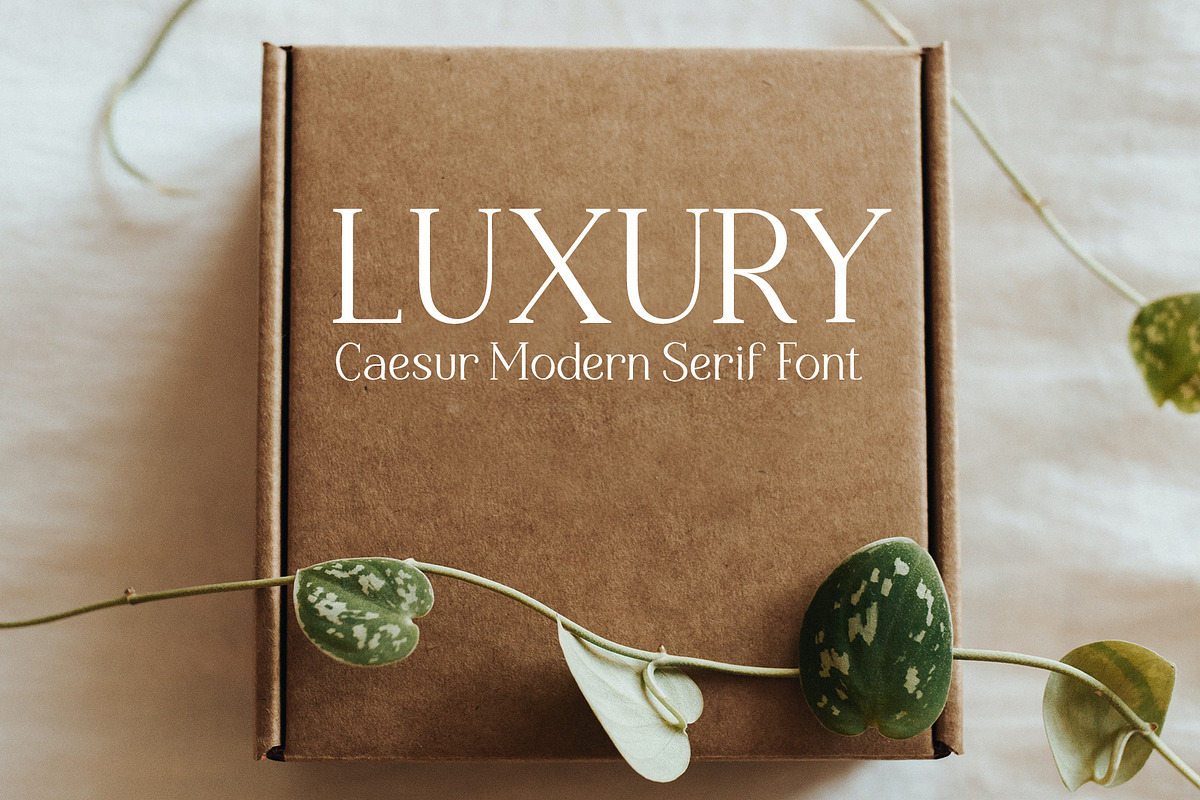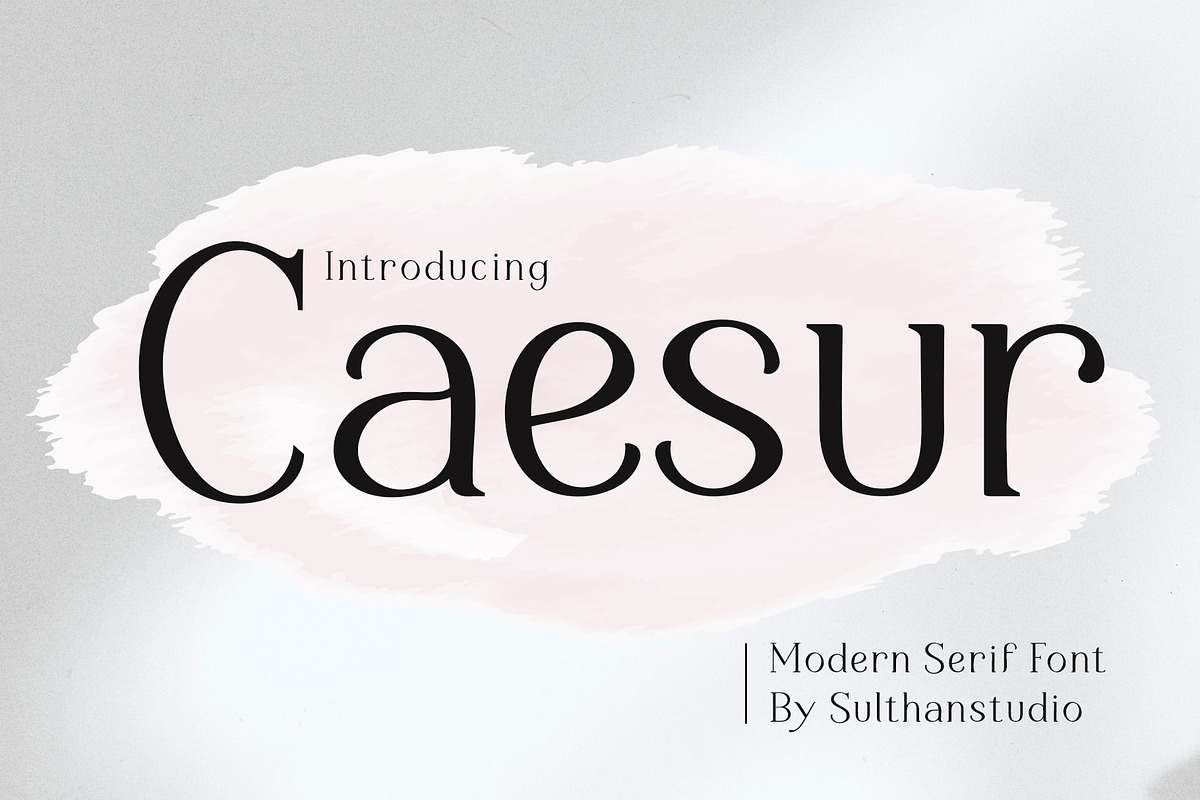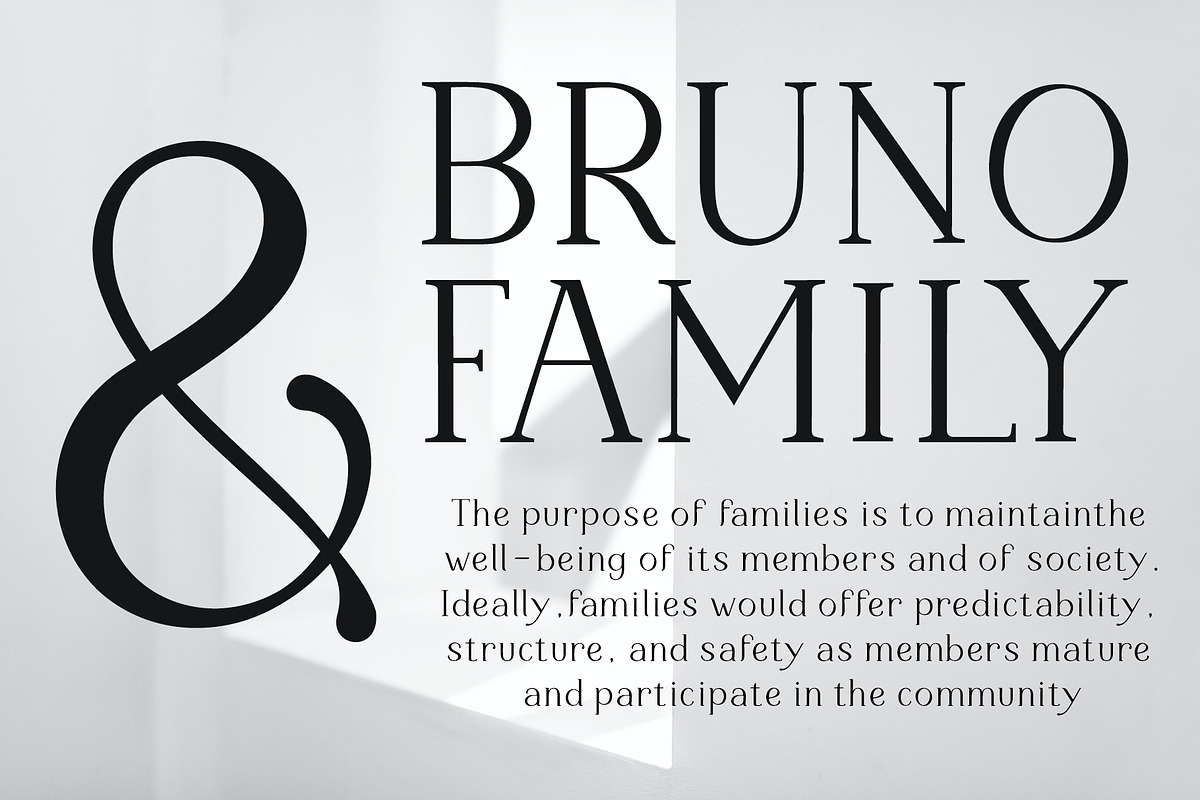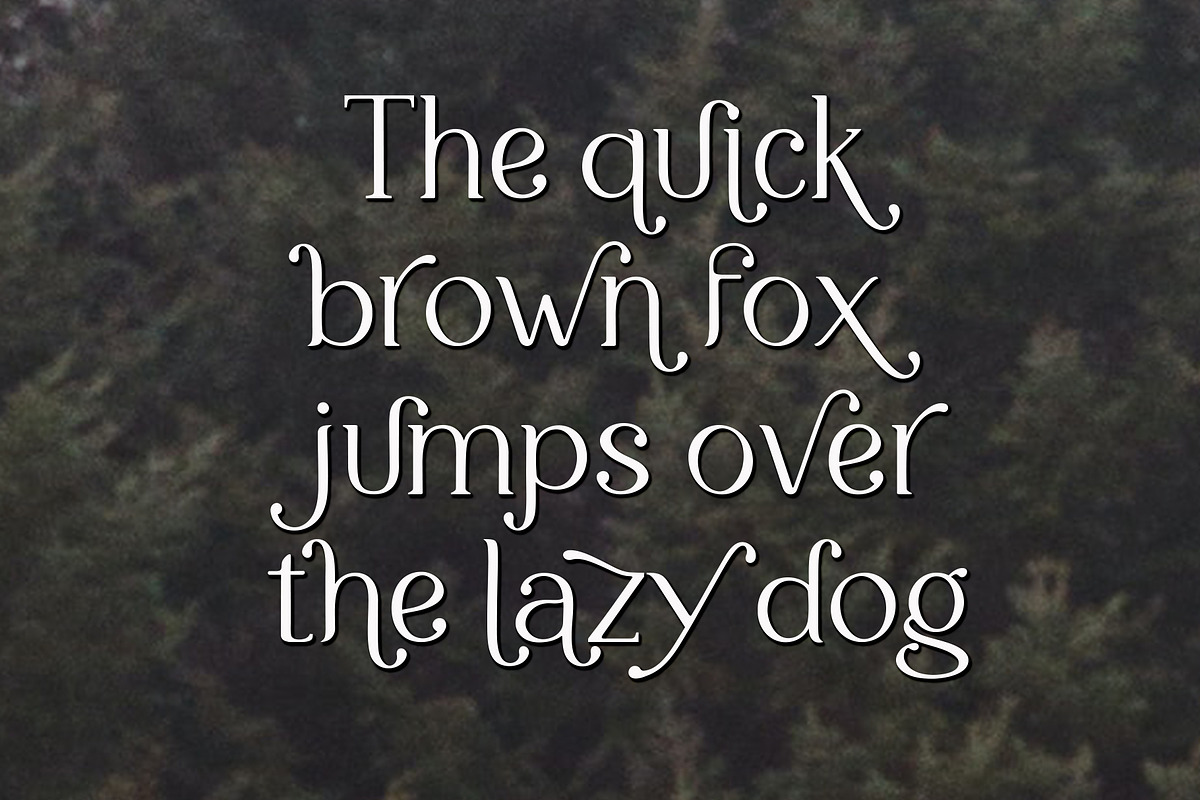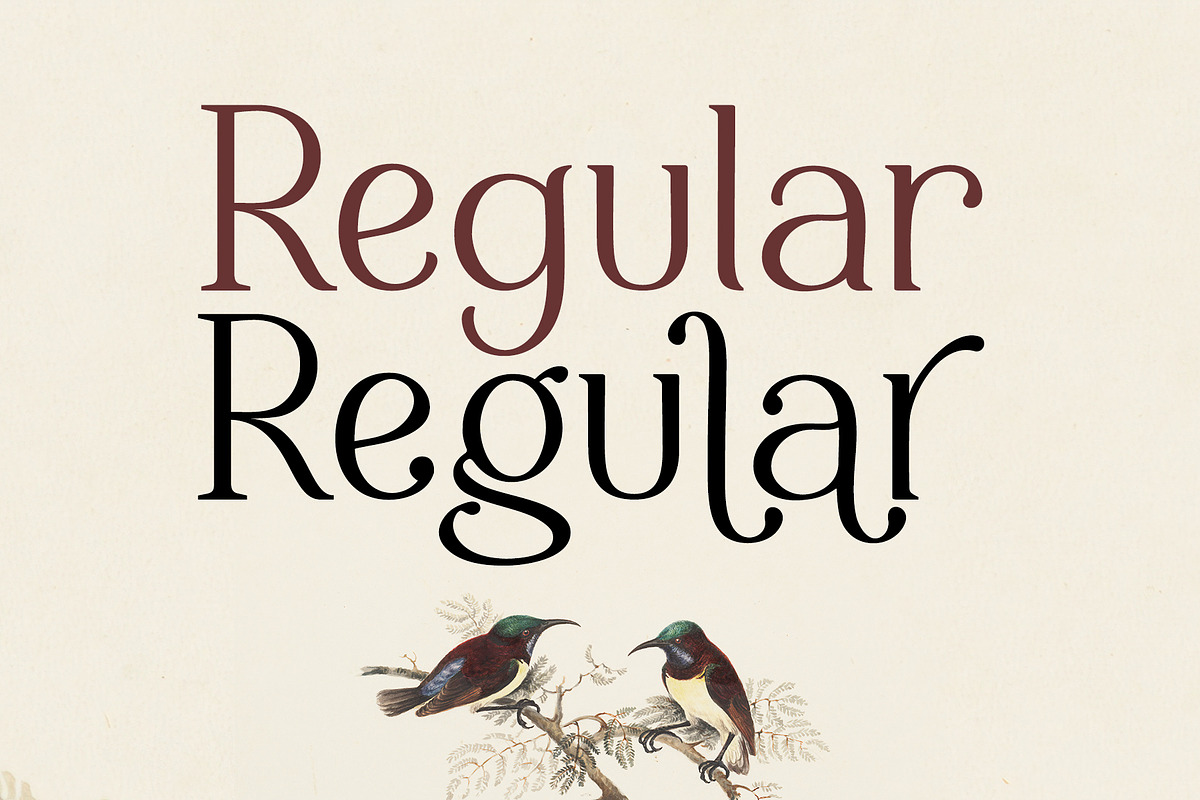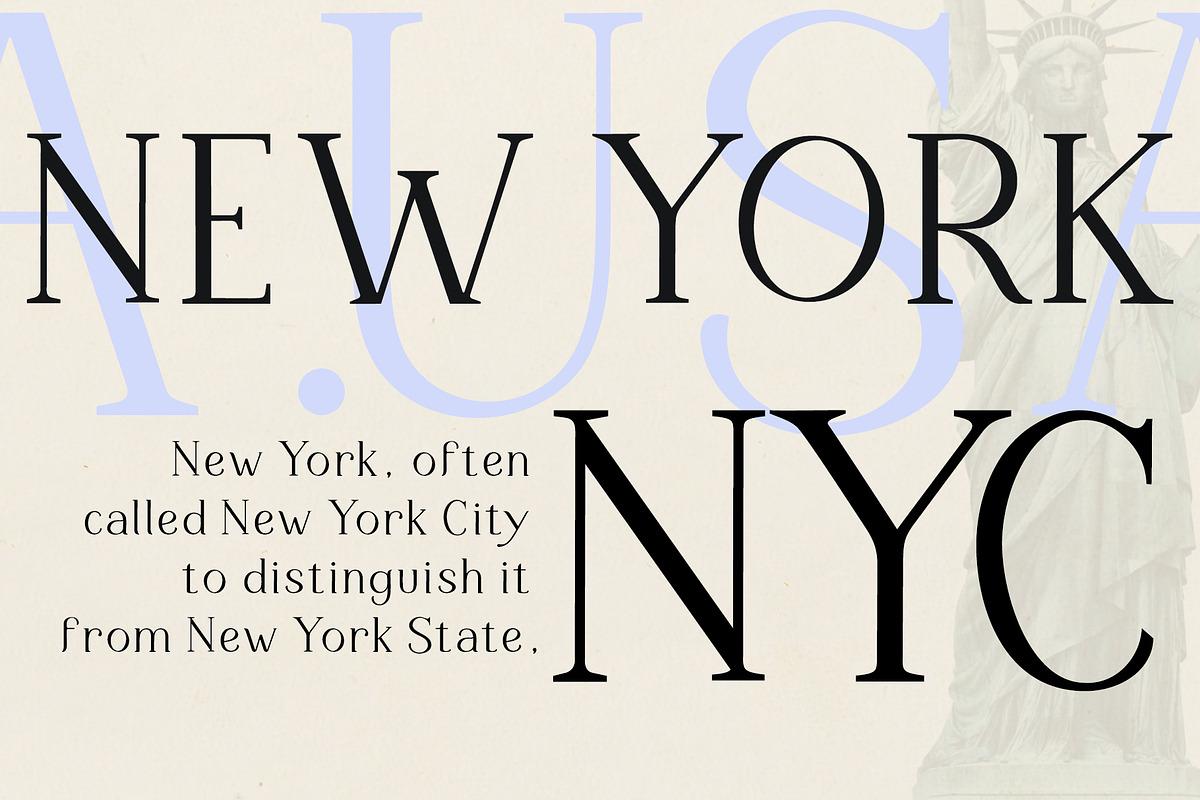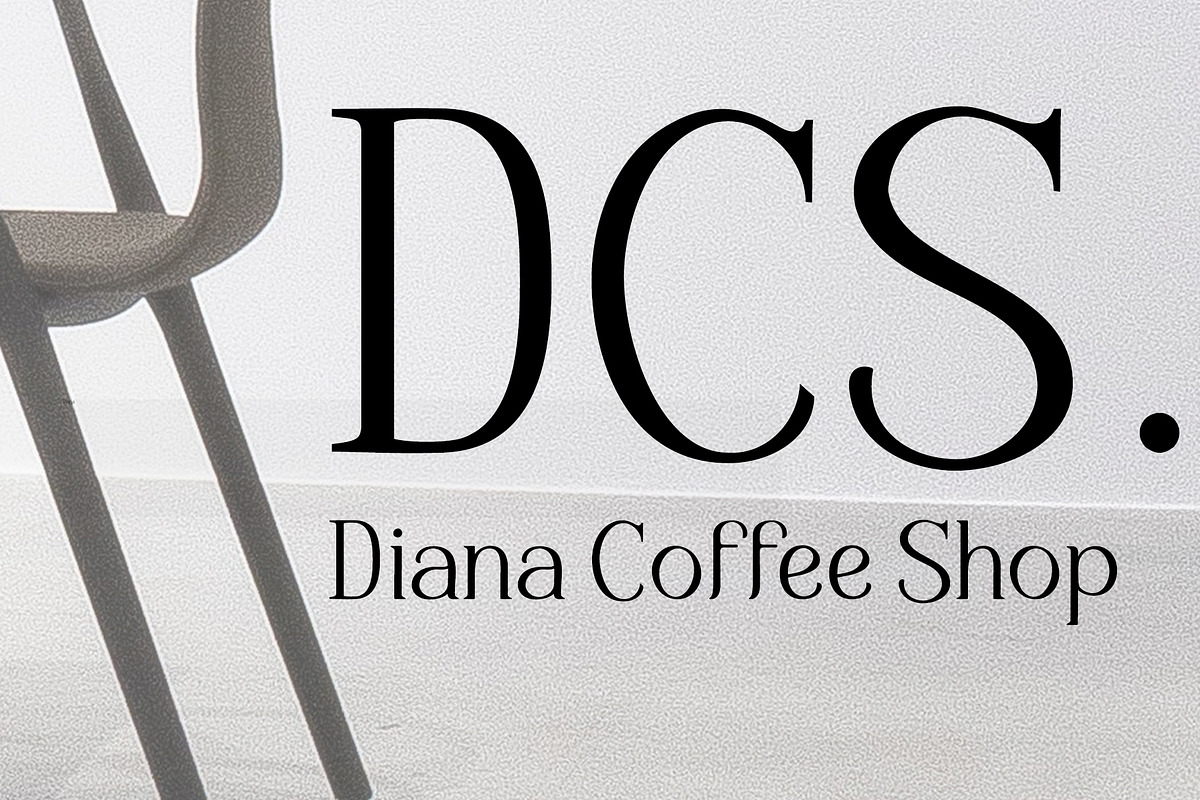
Caesur
Caesur is a modern serif font that is both simple and very attractive – it is perfect for logos, magazines, social media and much more
Caesur is built with OpenType features and includes ligatures, alternatives, numbers, punctuation, and also supports other languages.